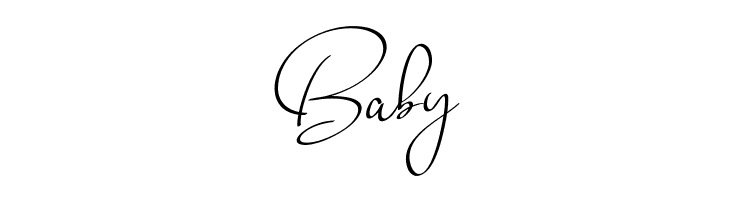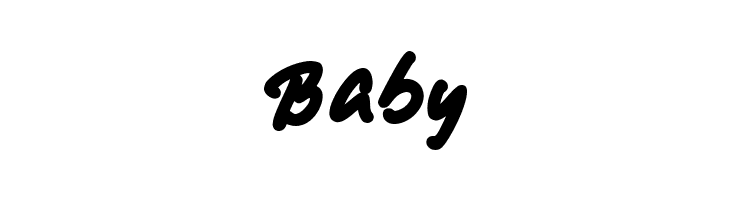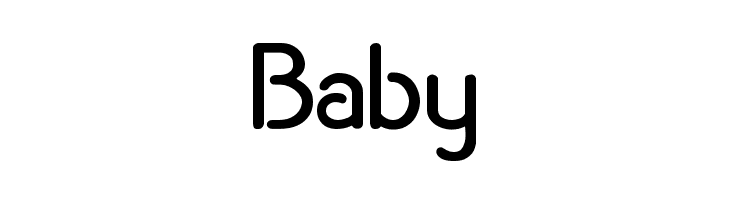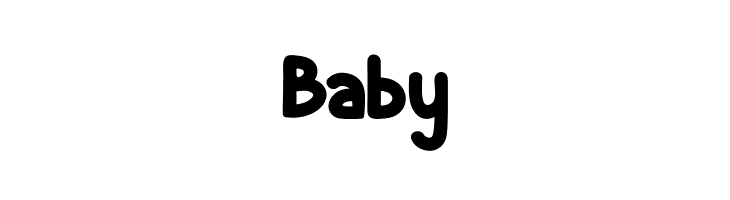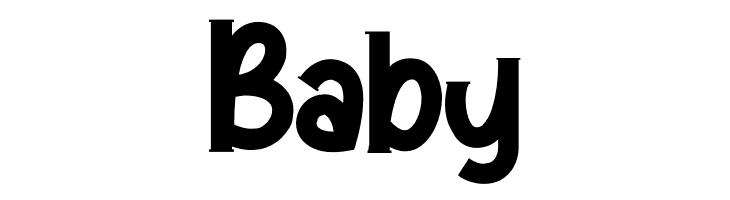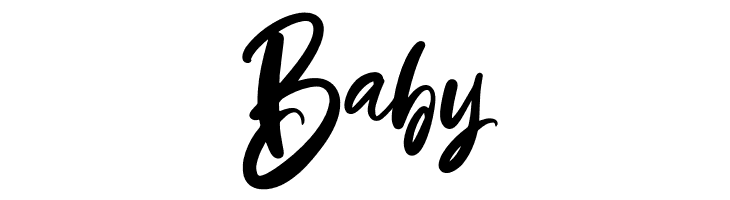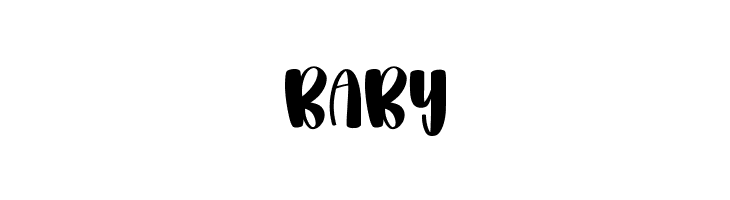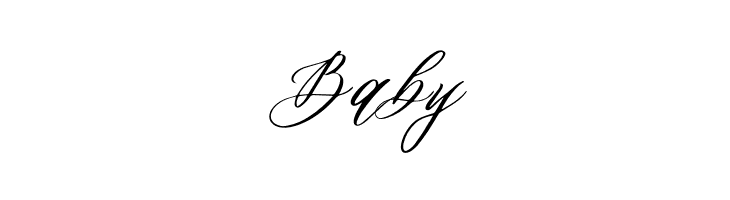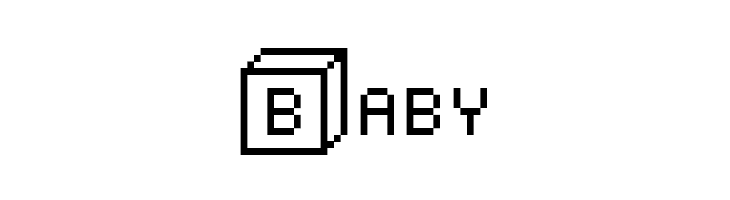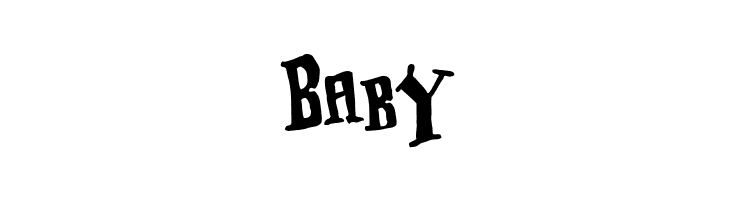
A modern italic font with clean lines and elegant curves.
A bold, modern font with rounded edges and a slightly condensed style.
A playful, bold font with a whimsical, hand-drawn style.
A bold, decorative font with a striped gradient effect.
A bold, playful font with a 3D shadow effect and rounded, flowing characters.
A bold, playful script font with a modern, decorative style.
A playful, bold typeface with rounded, bubble-like characters.
A playful, bold font with rounded, bubbly characters.
A bold, bubble-like font with a playful and modern style.
A graceful and elegant script font with flowing, cursive letters.
A modern, rounded font with a clean, geometric style.
A bold, handwritten font with a playful and dynamic style.
A bold, geometric font with tall, narrow uppercase letters and consistent lowercase forms.
A whimsical, hand-drawn font with a playful, spooky theme.
A graceful, cursive font with elegant, flowing lines and calligraphic style.
A playful and elegant script font with smooth, flowing lines.
A playful and whimsical font with bold, curvy elements and a lively appearance.
A playful, slanted font with outlined, layered characters and a modern geometric style.
A decorative, geometric font with outlined characters and a modern aesthetic.
A playful, slanted, outlined font with a dynamic and bold appearance.
A decorative, geometric font with a three-dimensional line effect.
A playful, slanted, and layered font with a dynamic, three-dimensional appearance.
A decorative, multi-layered outlined font with a geometric and modern style.
A playful, rounded font with a hand-drawn, whimsical style.
A playful and whimsical font with curly, decorative letterforms.
A playful, hand-drawn font with a bold and whimsical style.
A playful, blocky font with a pixelated, retro style.
A playful, handwritten font with bold, rounded characters and a lively style.
A modern, tall, and narrow sans-serif font with consistent stroke width.
A modern, italic font with a sleek, dynamic style.